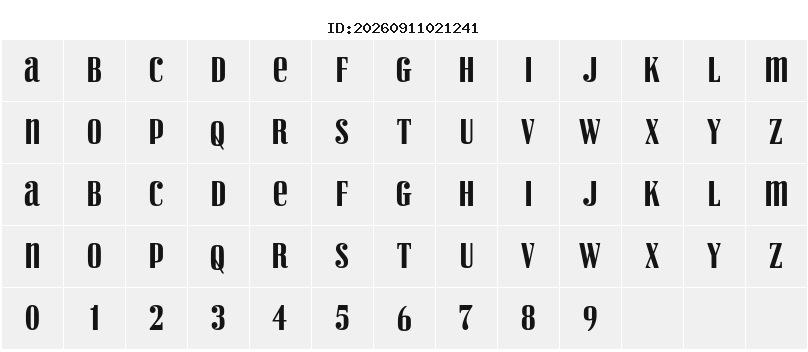
• Font Name: Vexler Slip
• Designer: Ray Larabie
• Manufacturer: Ray Larabie
About Vexler Slip.ttf
Vexler Slip.ttf is a modern, elegant sans-serif font designed for ultimate readability and visual harmony. Perfect for branding, headlines, web design, and print materials.